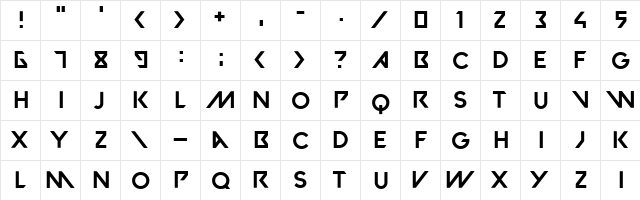
VALORANT Regular
Design Context for VALORANT Typeface
VALORANT is a composed and adaptable typeface that performs quietly and consistently across a wide range of design contexts.